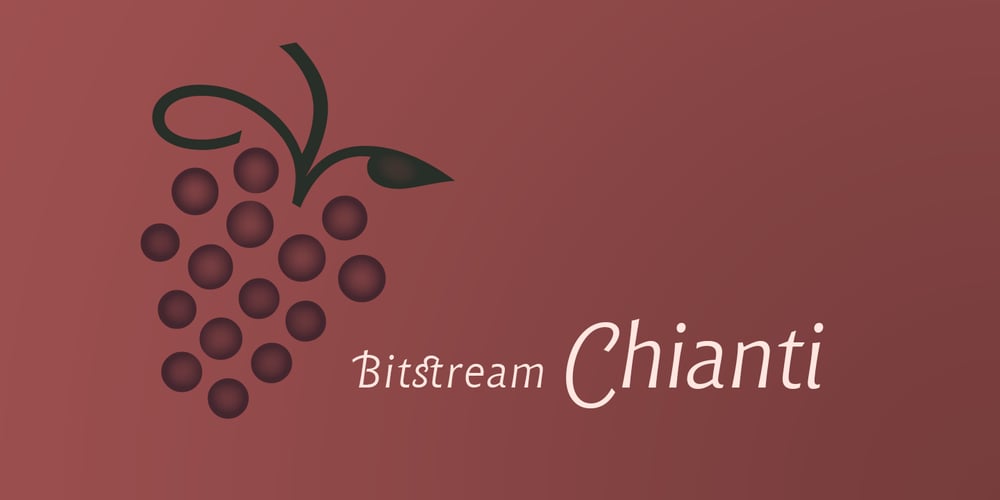
Chianti BT Font Family was designed by Dennis Pasternak and published by Bitstream. Chianti BT contains 20 styles and family package options. Chianti was designed at Bitstream by senior designer Dennis Pasternak in 1991 and initially released in 1995. The intent behind the design was to provide a humanist sanserif of high readability at a wide range of sizes and weights. Humanist sanserifs (others that fall into this category are Linotype’s Frutiger and Optima, and Monotype’s Gill Sans) are an attempt to improve the readability of sanserifs by applying classical roman structure to the letterforms. To enhance its versatility, Mr. Pasternak designed a wide variety of alternate characters, rare ligatures, ornaments and swashes. Chianti is a friendly sanserif useful for a broad range of typographic needs.